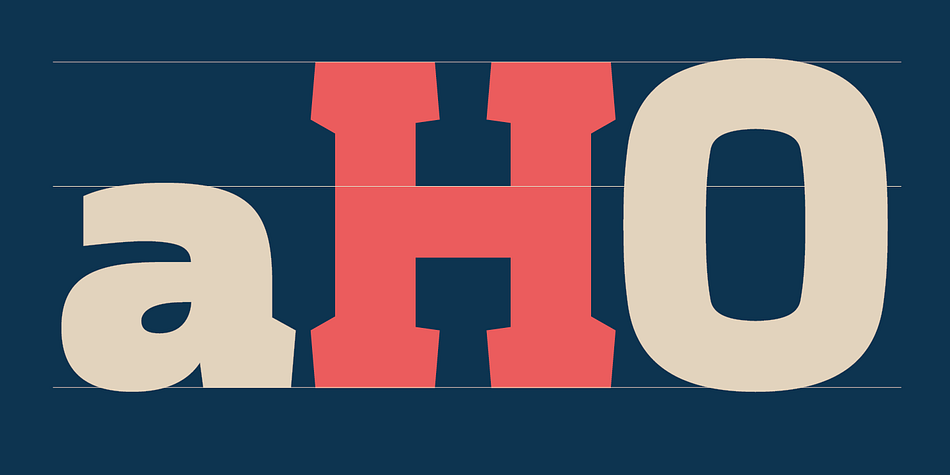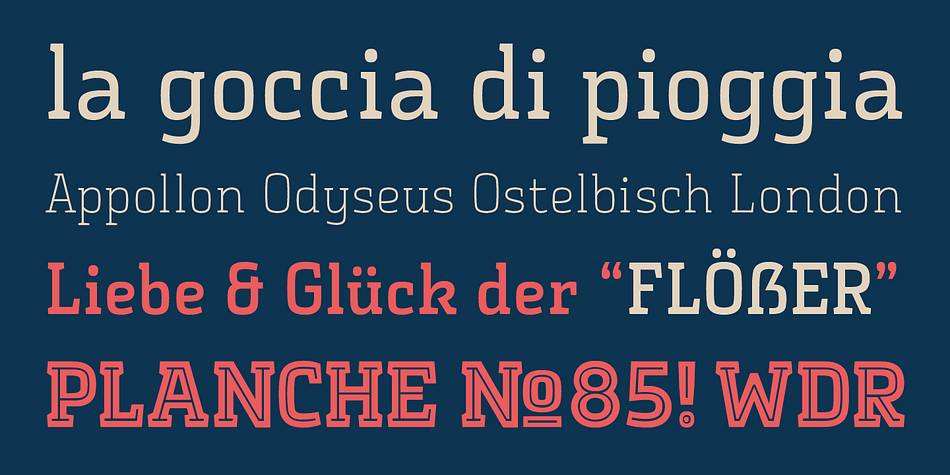
Vivala Slab
Designed by Johannes Hoffmann, Vivala Slab is a slab serif and display slab font family. This typeface has eight styles and was published by Johannes Hoffmann.
The family includes seven weights being seven uprights and an inline style. Vivala Slab is ideal for use in headline sizes, but it also works properly within text blocks and information design. Opentype features are: ligatures, ordinal, fractions, numerator, denominator, superscript and subscript.